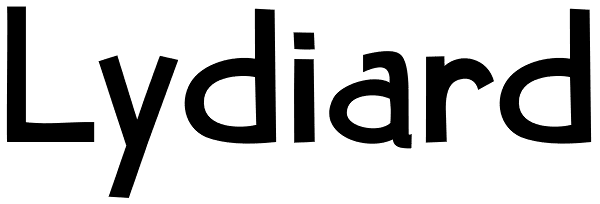
Lydiard
Lydiard is a funky and informal yet highly-readable font that would suit a large variety of modern graphics situations, coming in 4 weights to cover all requirements. The dynamic and lively design is original and distinctive, with a cheerful...